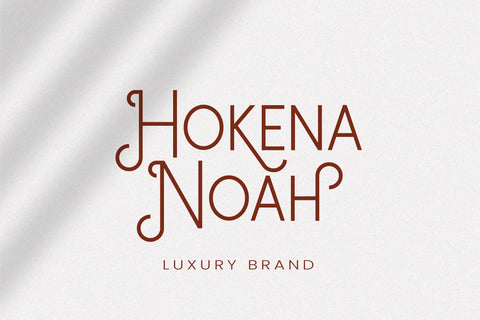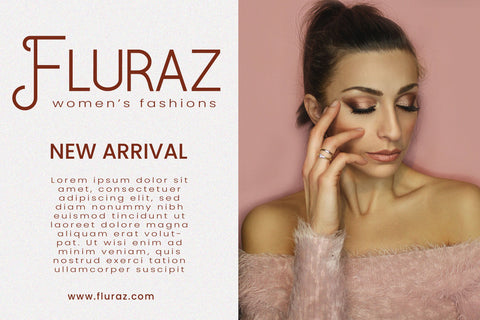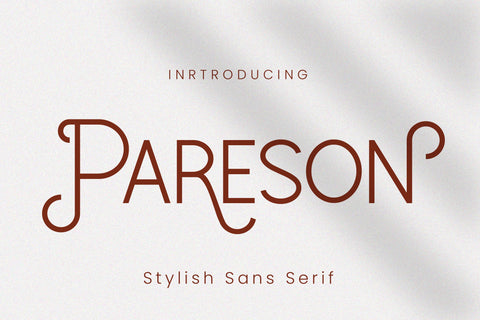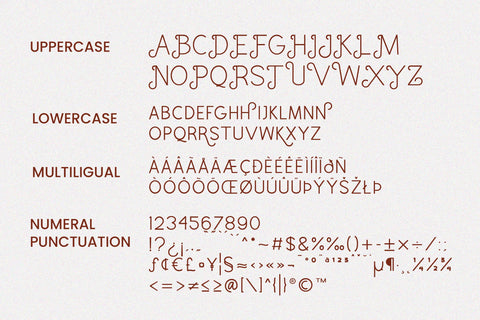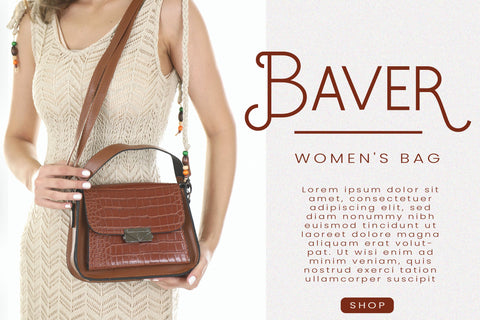
Pareson A Stylish & Beautiful Sans Serif Font
Pareson is stylish and beautiful sans serif font. It will look perfect in photography designs, watermarks, social media posts, advertisements, logos, branding, and various other projects.
– Numerals & Punctuations
– Multilingual support